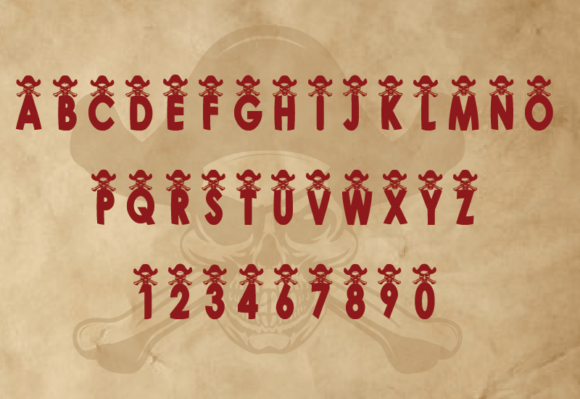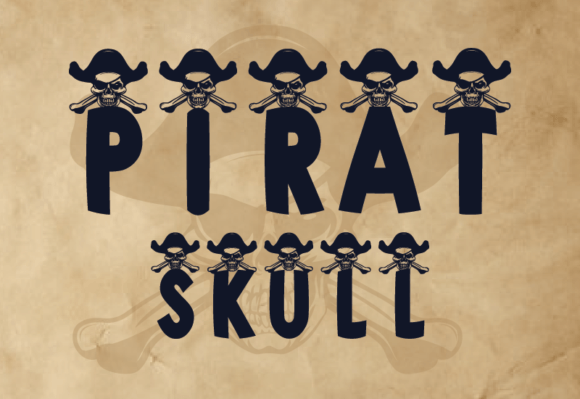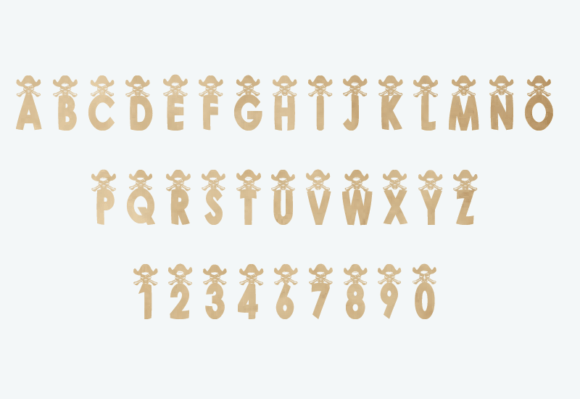
Introduction to Pirat Skull Font
Pirate Skull is a fantastic vintage-style font.
This font has the potential to bring each of your master ideas to the highest level You can use your font in any of your creative projects.
Key Features of Pirat Skull Font
Why Choose Pirat Skull Font?
Pirat Skull Font offers exceptional quality and versatility, making it a valuable addition to your design toolkit. Whether you’re creating for personal projects or commercial use, Pirat Skull Font delivers professional results.